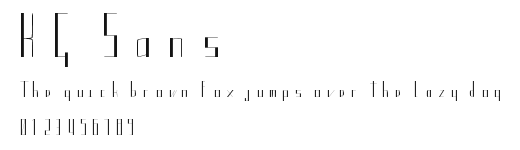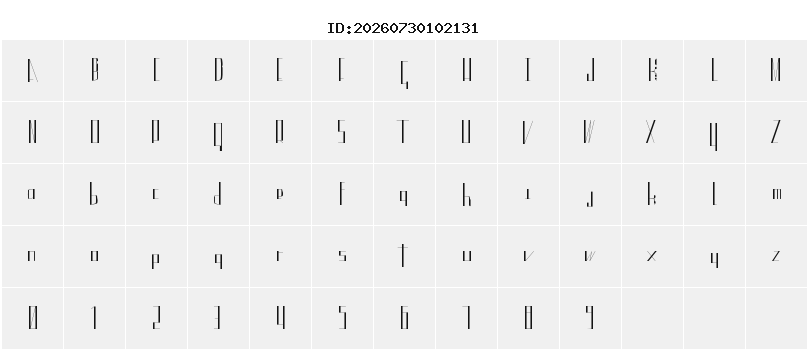
KG Sans Preview
About KG Sans.ttf
KG Sans.ttf is a modern, elegant sans-serif font designed for ultimate readability and visual harmony. Perfect for branding, headlines, web design, and print materials.